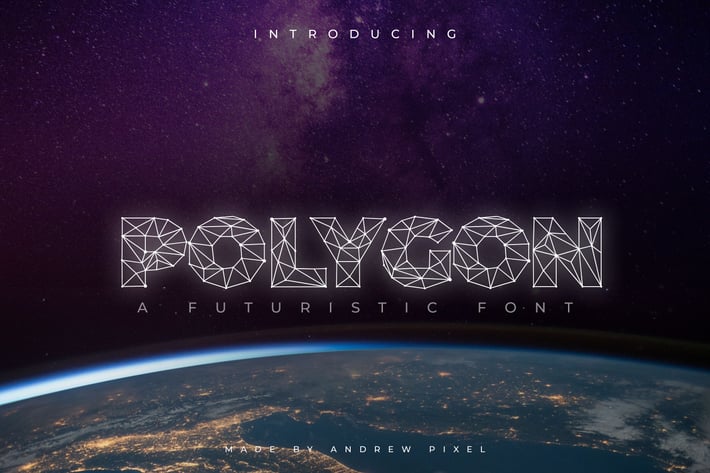
Polygon Technology Font
Introducing Polygon - an abstract grid technology font.
It's designed to be used as a display font to give a futuristic sci-fi feeling to your designs. Perfect for all kinds of hi-tech, virtual reality and artificial intelligence projects. Use it on web or for print designs.